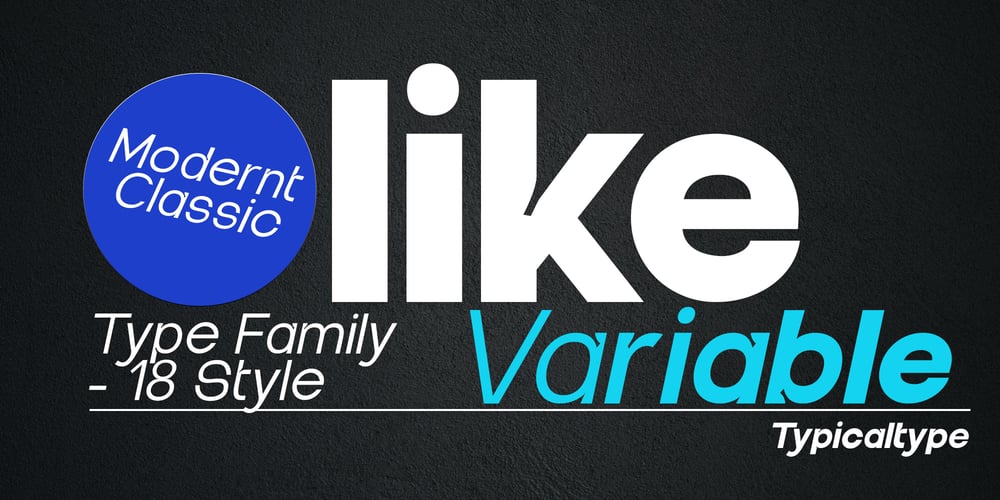
Olike Variable
Olike Variable font
Olike Variable Font Family was designed by Arif Fadilah and published by Typicaltype. Olike Variable contains 1 styles and family package options. Looking for a contemporary and modern grotesque sans serif font? Look no further than Olike! This versatile font comes with 18 styles, so you can create amazing designs that look both modern and stylish. With its sans serif style, Olike is perfect for any type of project or design.You will find your way to use this family certainly. Theatre posters or party flyers, vintage t-shirt or modern web service, movie titles or magazine header and even infographic – Olike will suit you everywhere. You may use the completed styles or may use a Variable Font. To make it as you want to.